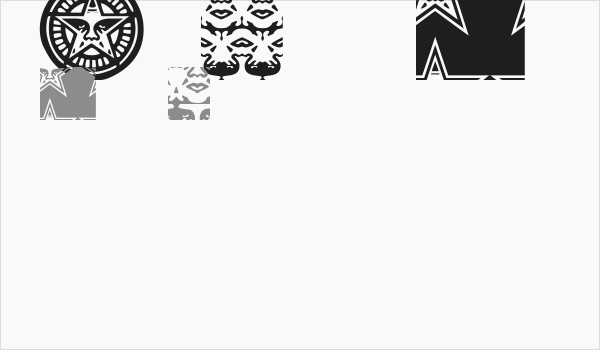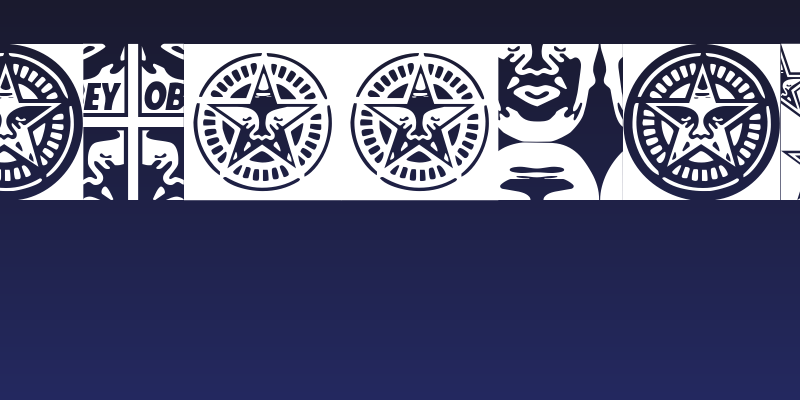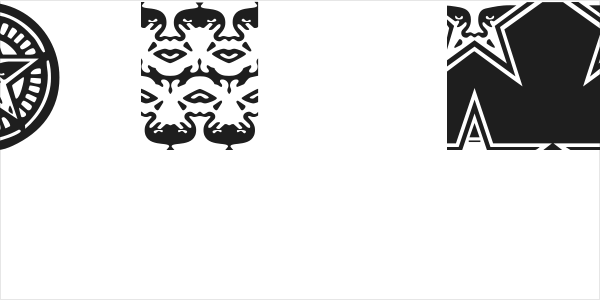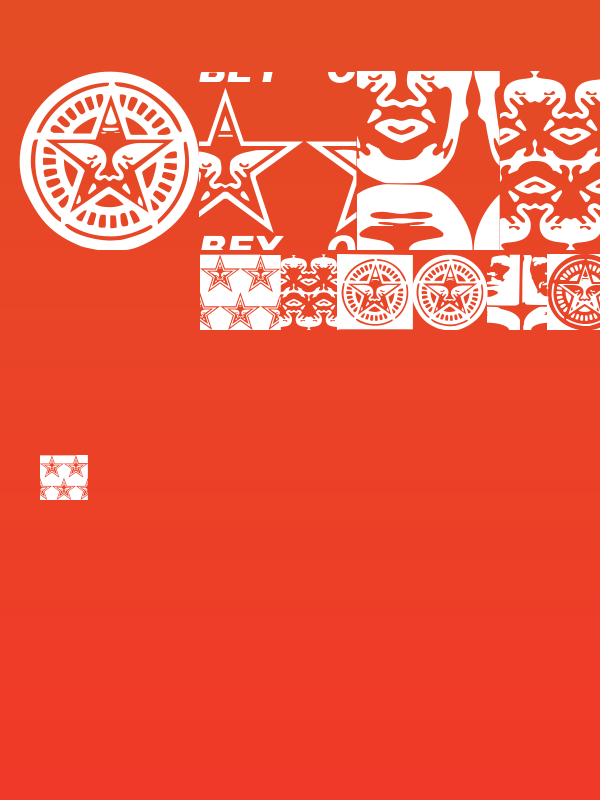
ObeyWrappersCaps Font
ObeyWrappersCaps Description
This is not a valid font. The image contains a series of graphic elements and patterns rather than a traditional font set. The design features bold, graphic imagery with high contrast, incorporating stars, faces, and abstract shapes. These elements are more suited for decorative purposes rather than typographic use.
| Use Case | Decorative elements, graphic design. |
| Proposed Projects | Ideal for decorative projects, graphic design, and artistic compositions. |